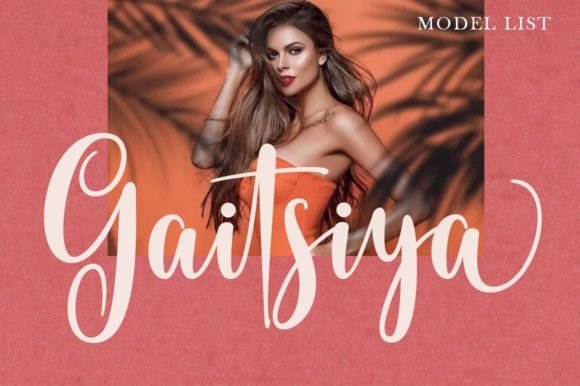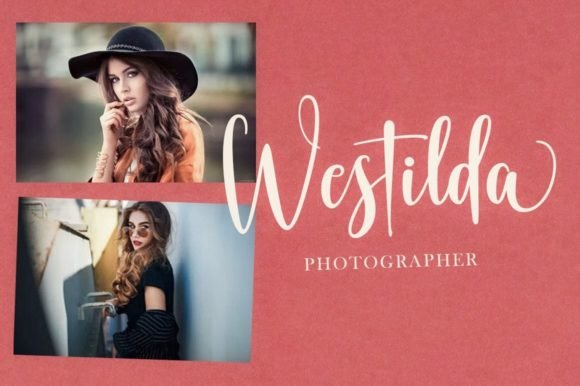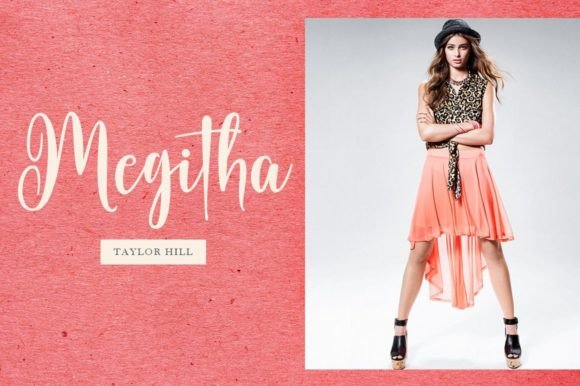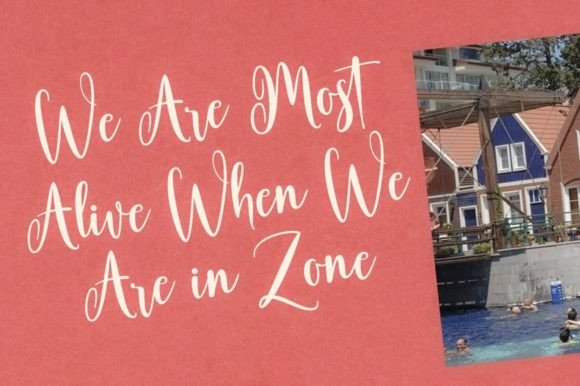
Introducing Amistella Font: The Perfect Handwritten Companion for Designers and Crafters
In the world of design, a font can make all the difference. It can elevate your project from ordinary to extraordinary, convey the right mood and tone, and even make or break the overall aesthetic. For designers and crafters looking for a beautiful, versatile, and easy-to-use font, Amistella is an excellent choice. This stunning handwritten font is perfect for a wide range of design applications, from branding and invitations to social media posts and product packaging.
What Makes Amistella Font So Special?
Amistella font is a beautiful handwritten font that is designed to add a personal touch to any design project. Its elegant and flowing script makes it perfect for designs that require a touch of sophistication and whimsy. Whether you’re working on a wedding invitation, a product label, or a social media post, Amistella font is sure to make your design stand out.
One of the key features that sets Amistella font apart is its PUA (Private Use Area) encoding. This means that you can access all of the glyphs and swashes with ease, giving you complete creative control over your design. With Amistella font, you can add flourishes, ligatures, and other special characters to make your design truly unique.
Endless Design Possibilities with Amistella Font
Amistella font is incredibly versatile and can be used for a wide range of design projects, including:
- Branding: Create a cohesive brand identity with Amistella font, perfect for logos, business cards, and letterheads.
- Invitations: Make your invitations stand out with Amistella font, ideal for weddings, baby showers, and other special events.
- Stationery: Add a personal touch to your stationery with Amistella font, perfect for journals, planners, and notebooks.
- Wedding Designs: Make your wedding designs truly special with Amistella font, ideal for wedding invitations, programs, and decorations.
- Social Media Posts: Elevate your social media posts with Amistella font, perfect for creating eye-catching graphics and quotes.
- Advertising: Use Amistella font to create stunning advertisements, perfect for print, digital, or outdoor ads.
- Product Packaging: Make your product packaging stand out with Amistella font, ideal for labels, tags, and packaging materials.
- Product Designs: Add a personal touch to your product designs with Amistella font, perfect for creating unique and eye-catching designs.
- Labels: Create beautiful labels with Amistella font, ideal for products, files, and folders.
- Photography: Use Amistella font to create stunning watermarks, perfect for protecting your photos and adding a touch of elegance.
- Special Events: Make your special events truly unforgettable with Amistella font, perfect for creating unique and memorable designs.
Why Choose Amistella Font?
With so many fonts available, why choose Amistella font? Here are just a few reasons why designers and crafters love Amistella font:
- Unique and Elegant: Amistella font is a truly unique and elegant handwritten font that will make your designs stand out.
- Easy to Use: With PUA encoding, Amistella font is easy to use and allows you to access all of the glyphs and swashes with ease.
- Versatile: Amistella font is incredibly versatile and can be used for a wide range of design projects.
- High-Quality: Amistella font is a high-quality font that is designed to deliver exceptional results.
In conclusion, Amistella font is a beautiful handwritten font that is perfect for designers and crafters looking for a versatile and easy-to-use font. With its elegant and flowing script, PUA encoding, and endless design possibilities, Amistella font is an excellent choice for any design project. Whether you’re working on a branding project, creating invitations, or designing product packaging, Amistella font is sure to make your design stand out. So why wait? Download Amistella font today and start creating stunning designs that will leave a lasting impression!